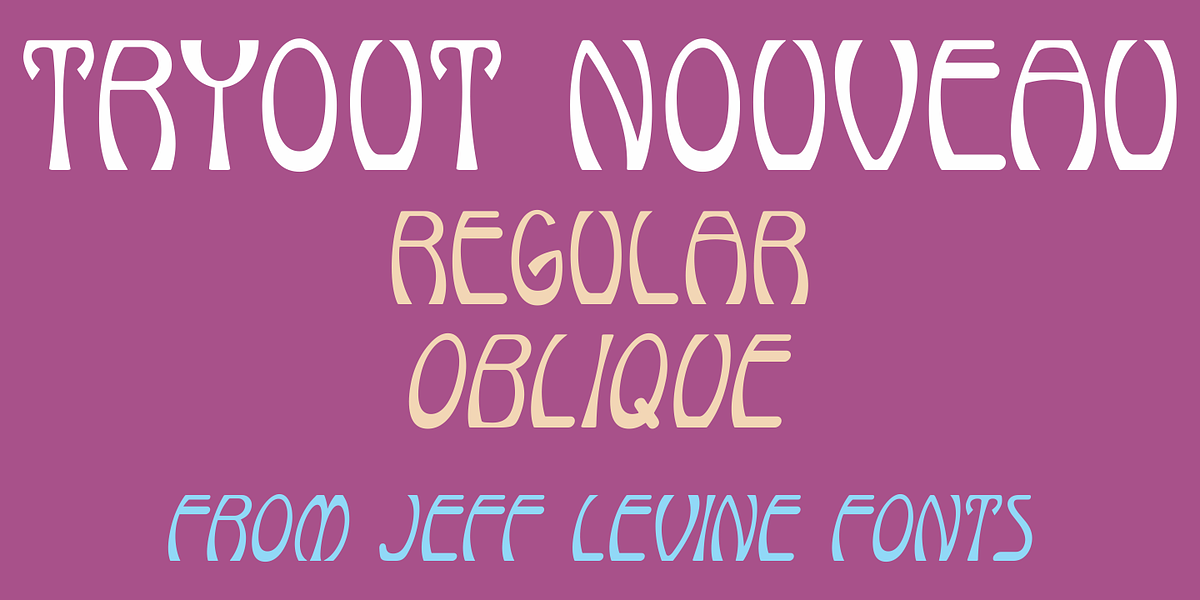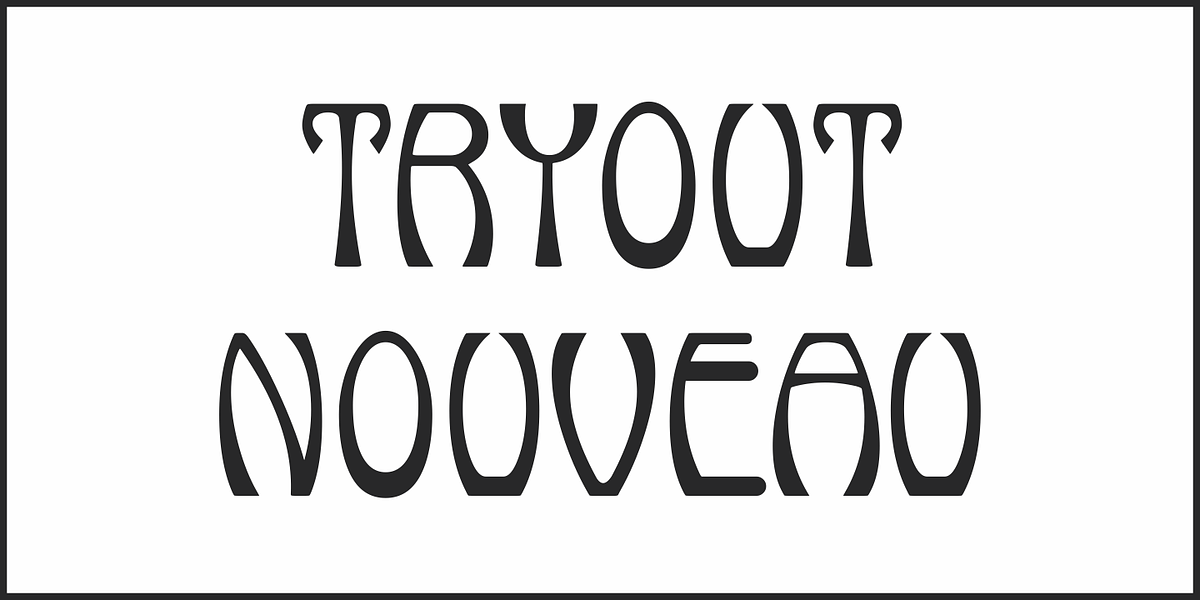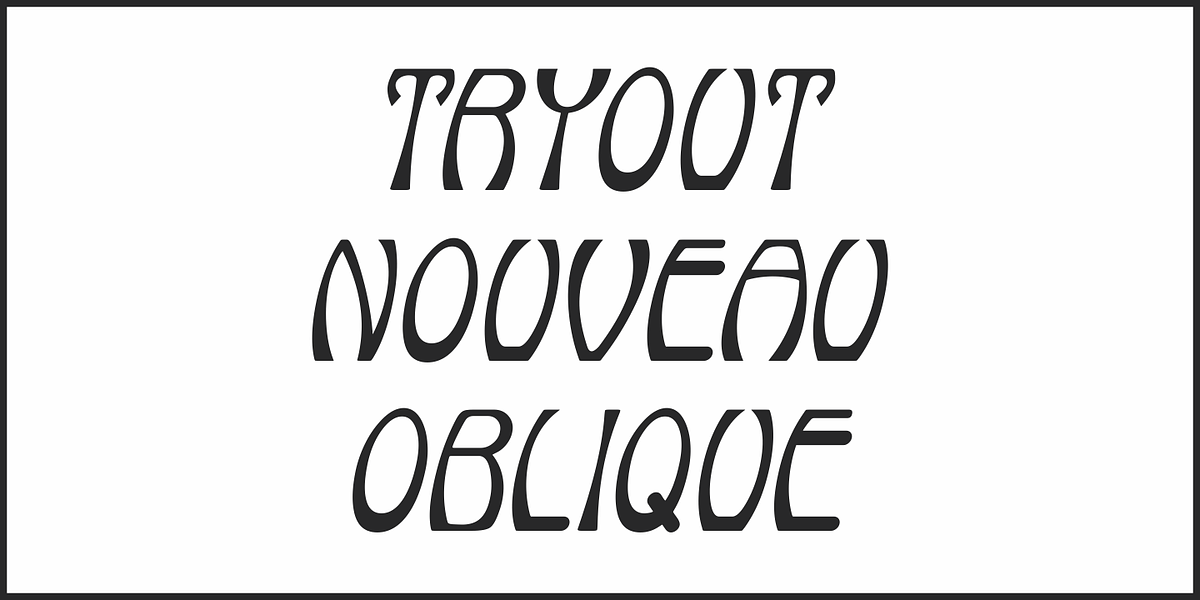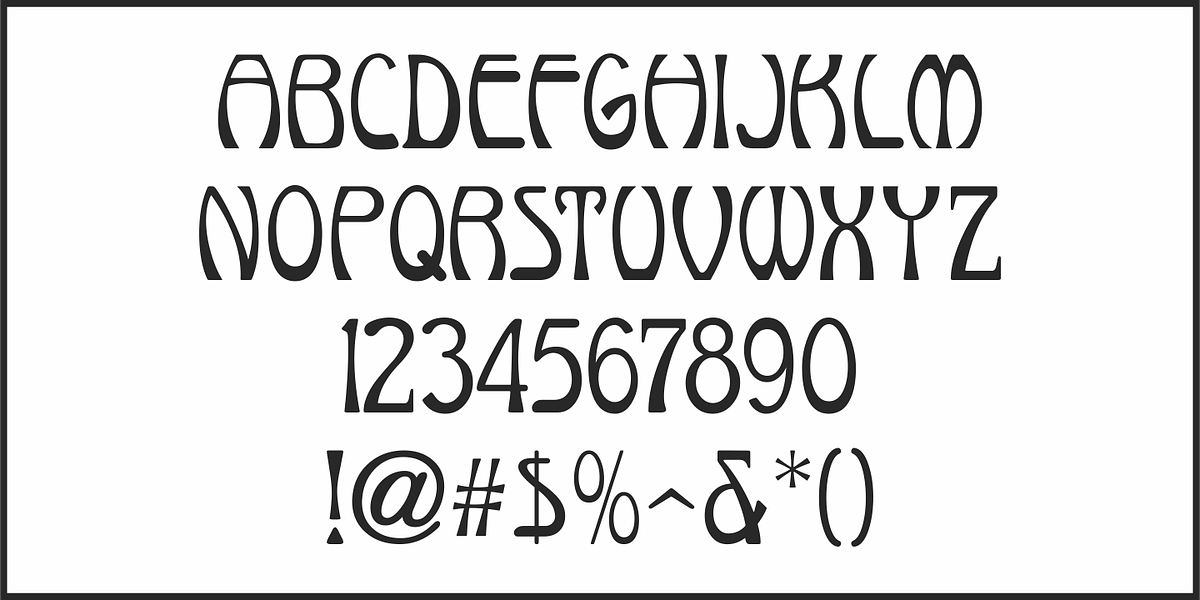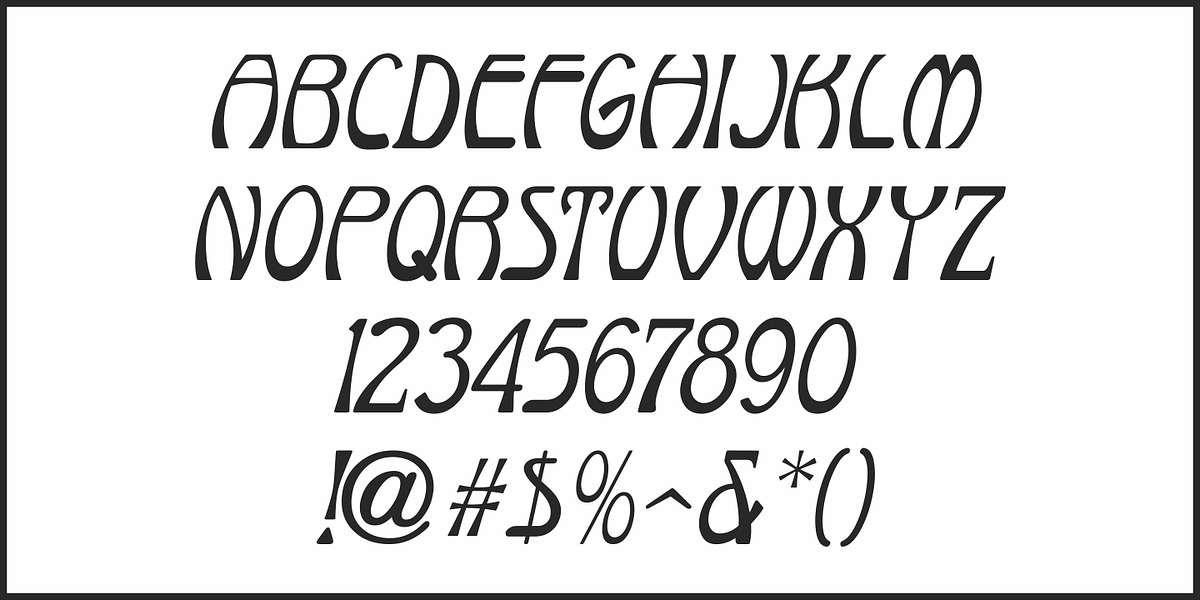
Tryout Nouveau JNL
The hand lettered Art Nouveau title on the sheet music for “Why Don't You Try” (1905) served as the inspiration for Tryout Nouveau JNL, which is available in both regular and oblique versions.